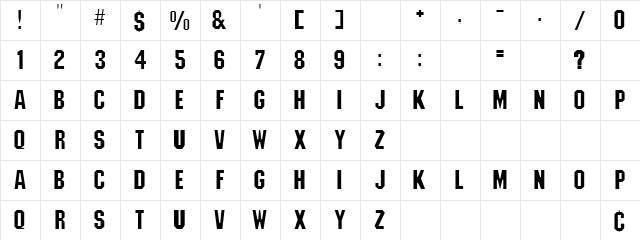
Machiavelli Regular
Design Context for Machiavelli Typeface
Machiavelli is a composed and adaptable typeface that performs quietly and consistently across a wide range of design contexts.
Pro Tip: Pair Machiavelli with a font of contrasting weight or personality to build a more expressive typographic hierarchy.